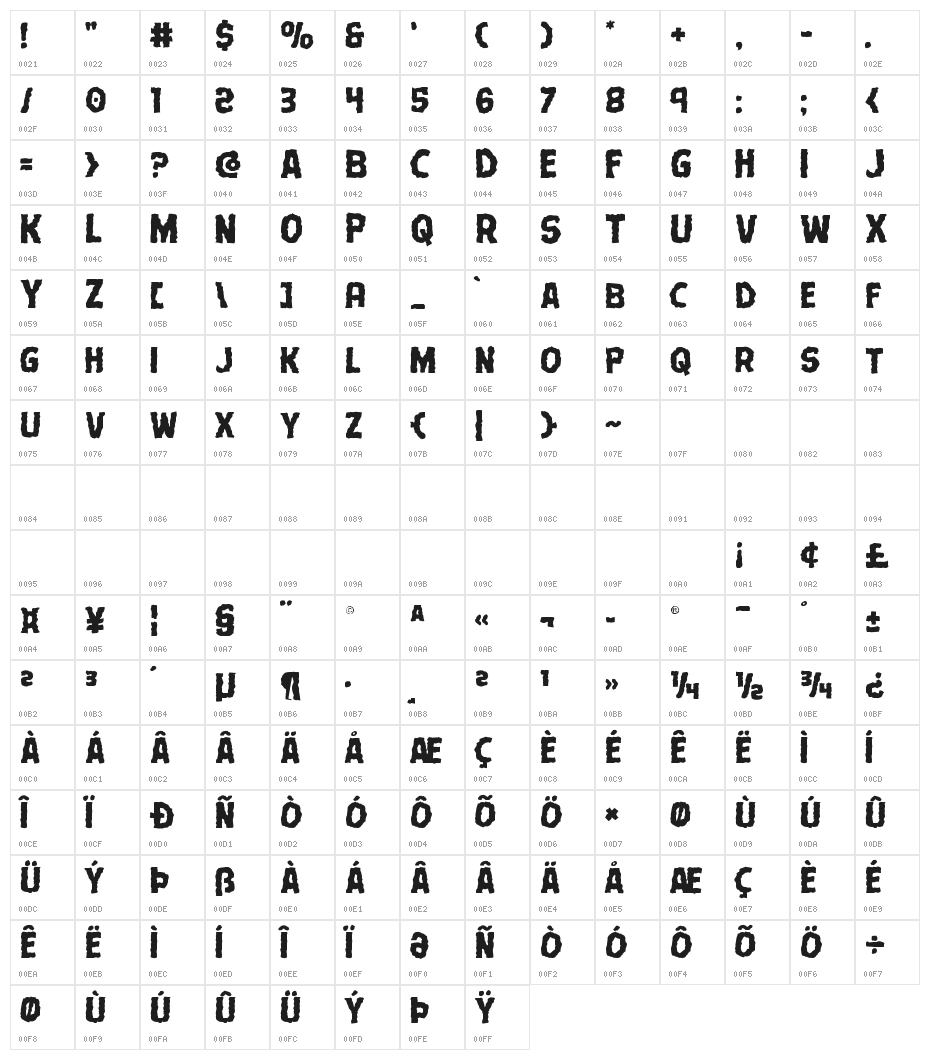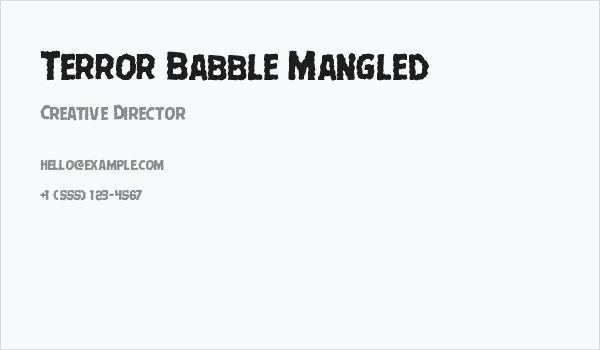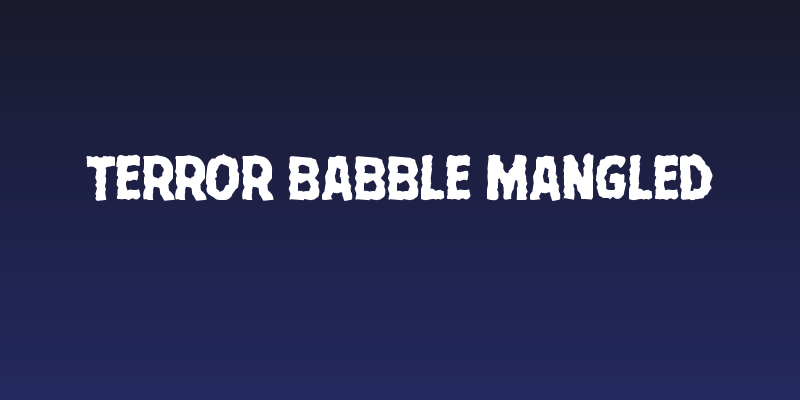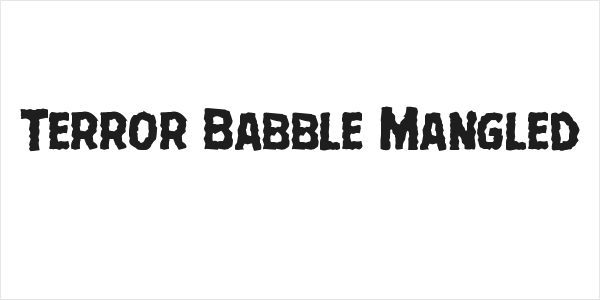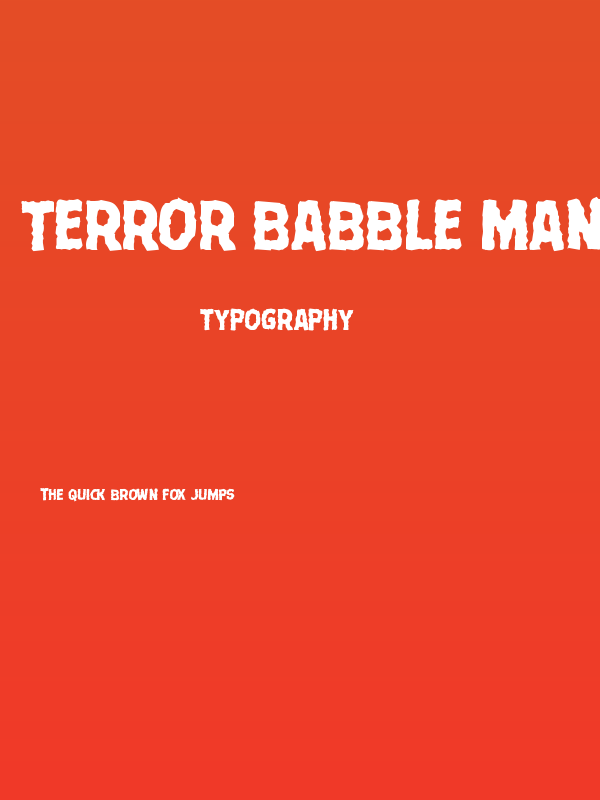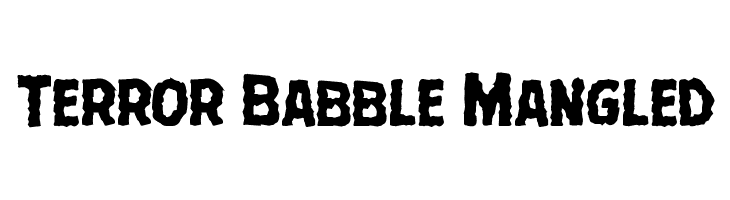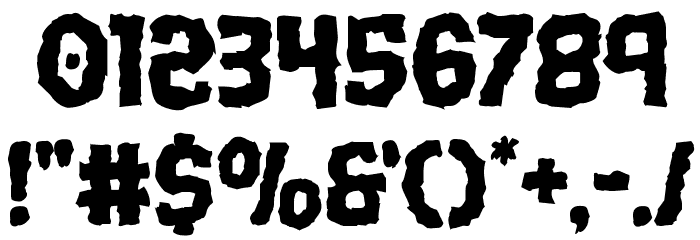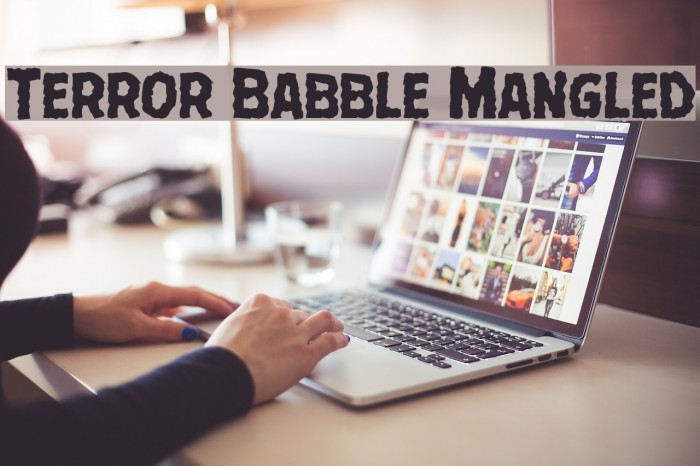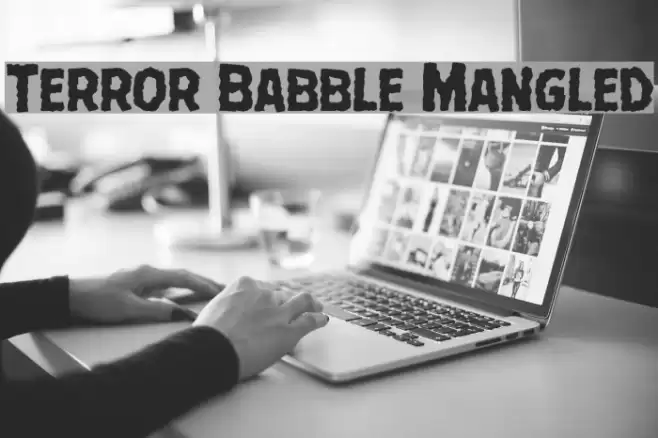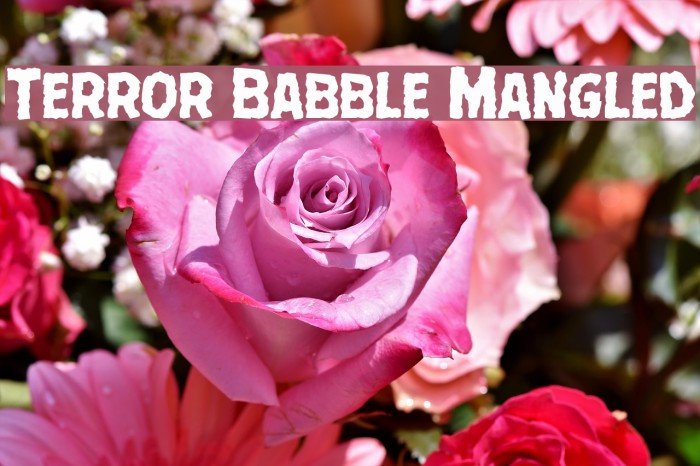
Terror Babble Mangled Font
Terror Babble Mangled Description
This font features a bold and rugged design, characterized by its irregular, jagged edges and a distressed appearance. The letters have a hand-drawn, chaotic style that gives them a unique, eye-catching look. The uppercase and lowercase letters maintain a consistent thickness, while the numbers and special characters follow the same rough aesthetic. This font is ideal for projects that require a dramatic and edgy feel, such as horror-themed designs or rebellious branding.
| Proposed Projects | Ideal for horror-themed designs, rebellious branding, posters, and album covers. |